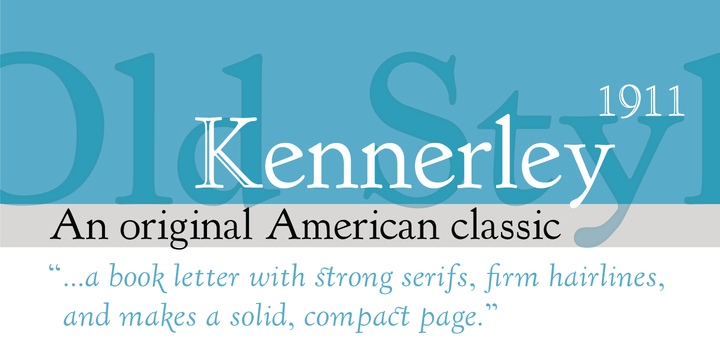
Kennerley Font
Kennerley Font is perfect for traditional book publishing, classical literature reprints, academic scholarly journals, historical document reproductions, distinguished library materials, heritage institution communications, university press publications, classical arts presentations, timeless editorial layouts, and authentic literary typography projects.
What makes Kennerley Font so exciting is its exceptional embodiment of classical typographic excellence and literary tradition that captures the timeless beauty of traditional book design and the enduring power of scholarly communication through masterfully crafted typography. This classically inspired typeface features refined letterforms with traditional proportions and scholarly-influenced character variations that immediately convey authority, elegance, and the transformative power of literary tradition. The font's classical construction and scholarly aesthetic create an instant sense of academic credibility and literary sophistication, making it ideal for projects that need to communicate scholarly excellence, literary heritage, and the life-enriching power of classical typography to audiences seeking authentic literary experiences and meaningful scholarly connections.
The Kennerley Font family typically includes multiple scholarly weights and classical styles, often featuring light through bold variations along with traditionally crafted italic versions and literary-optimized alternatives. Classical font collections frequently offer extensive character sets including scholarly symbols, literary ornaments, and academic decorations that enhance the authentic traditional aesthetic and provide designers with comprehensive tools for creating genuinely scholarly and literarily sophisticated communications.
The scholarly nature of Kennerley Font makes it particularly effective for targeting demographics that value literary tradition and academic excellence in their educational and cultural pursuits. Academic publishers and literary institutions will find this font especially valuable for materials that must establish immediate scholarly credibility and connect with audiences seeking authentic literary experiences and meaningful academic engagement.
What sets Kennerley Font apart is its ability to convey classical authority while maintaining the readability necessary for effective contemporary academic and literary communication. This balanced characteristic makes it suitable for both traditional scholarly applications and modern educational contexts where projecting academic heritage and maintaining contemporary accessibility must work together harmoniously.
Professional designers recognize that Kennerley Font brings invaluable literary credibility to projects across industries including academic publishing, educational institutions, literary organizations, and cultural preservation. Its classical character and scholarly appeal make it essential for organizations whose mission centers on preserving literary tradition, promoting academic excellence, and creating meaningful connections between classical typography and contemporary scholarly communication.
The systematically crafted classical authenticity of Kennerley Font ensures consistent scholarly messaging across all literature-focused communication applications while honoring the fundamental importance of typographic tradition and academic excellence in classical literary typography.